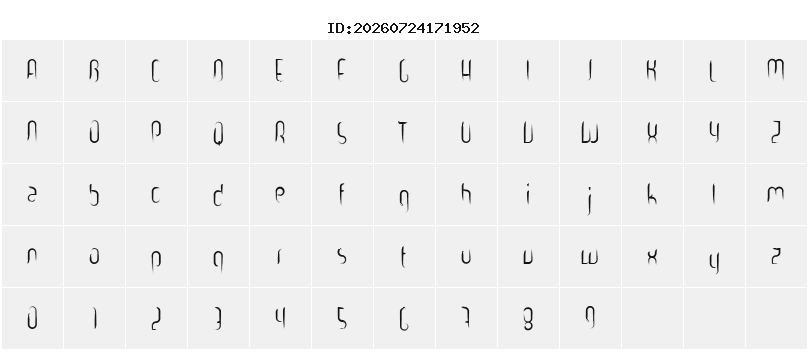
gooooly Preview
• Font Name: gooooly
• Full Font Name: gooooly
• PostScript Name: gooooly
• Designer: prask
• Manufacturer: prask
About gooooly.ttf
gooooly.ttf is a modern, elegant sans-serif font designed for ultimate readability and visual harmony. Perfect for branding, headlines, web design, and print materials.